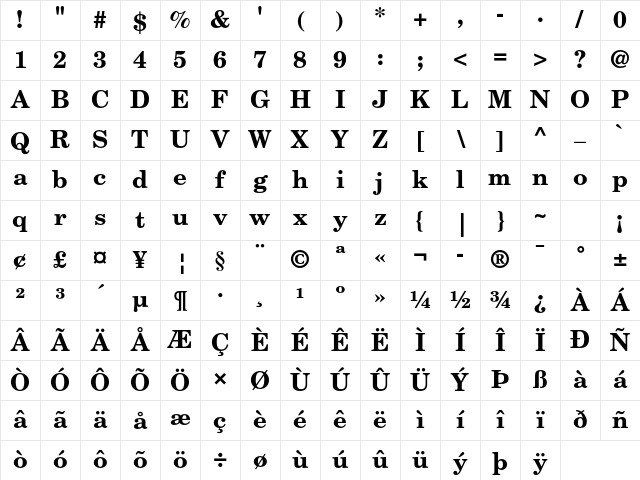
Complete New Century Schoolbook LT Std Bold glyph index. Displaying only characters natively supported by New Century Schoolbook LT Std Bold font.
New Century Schoolbook LT Std is a composed and adaptable typeface that performs quietly and consistently across a wide range of design contexts. Its bold stroke weight gives it real presence on the page.